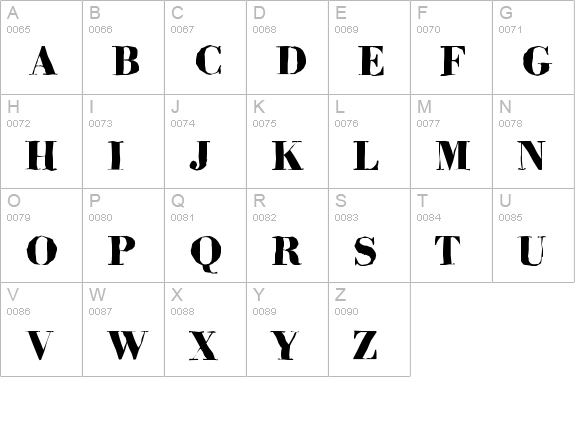
BodoniAntique-Xbold-Regular is the standard, neutral variant in the BodoniAntique typeface family \xE2\x80\x94 well suited to general body text, paragraphs, and standard typographic work.
BodoniAntique-Xbold-Regular is a striking and elegant font that exudes sophistication and style. With its bold and commanding presence, this typeface is perfect for making a statement in headlines, titles, and other prominent text. The sharp serifs and clean lines of BodoniAntique-Xbold-Regular give it a timeless and classic look that is sure to capture attention. Best of all, this impressive font is available for free download at FontsMarket.com. Whether you're working on a design project, creating marketing materials, or simply looking to add a touch of class to your work, BodoniAntique-Xbold-Regular is a fantastic choice that won't cost you a thing. Download this font today and elevate your designs with its bold and distinctive appearance.